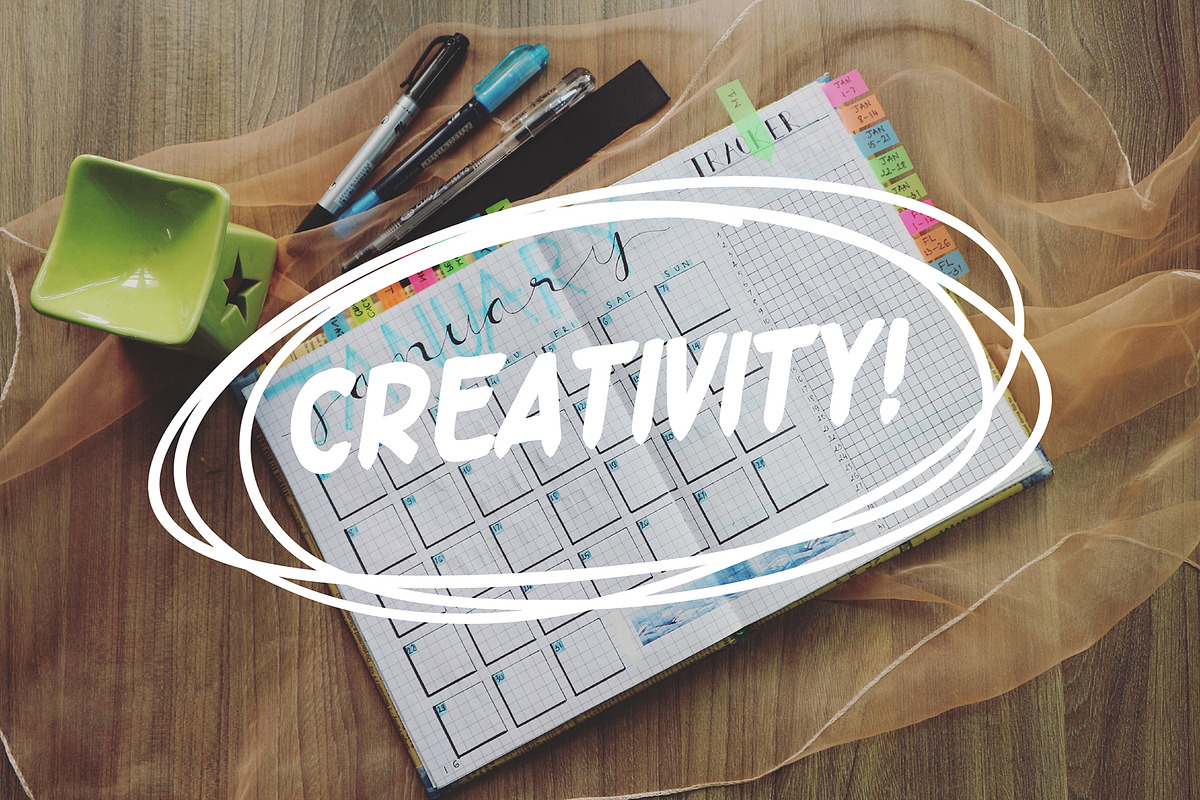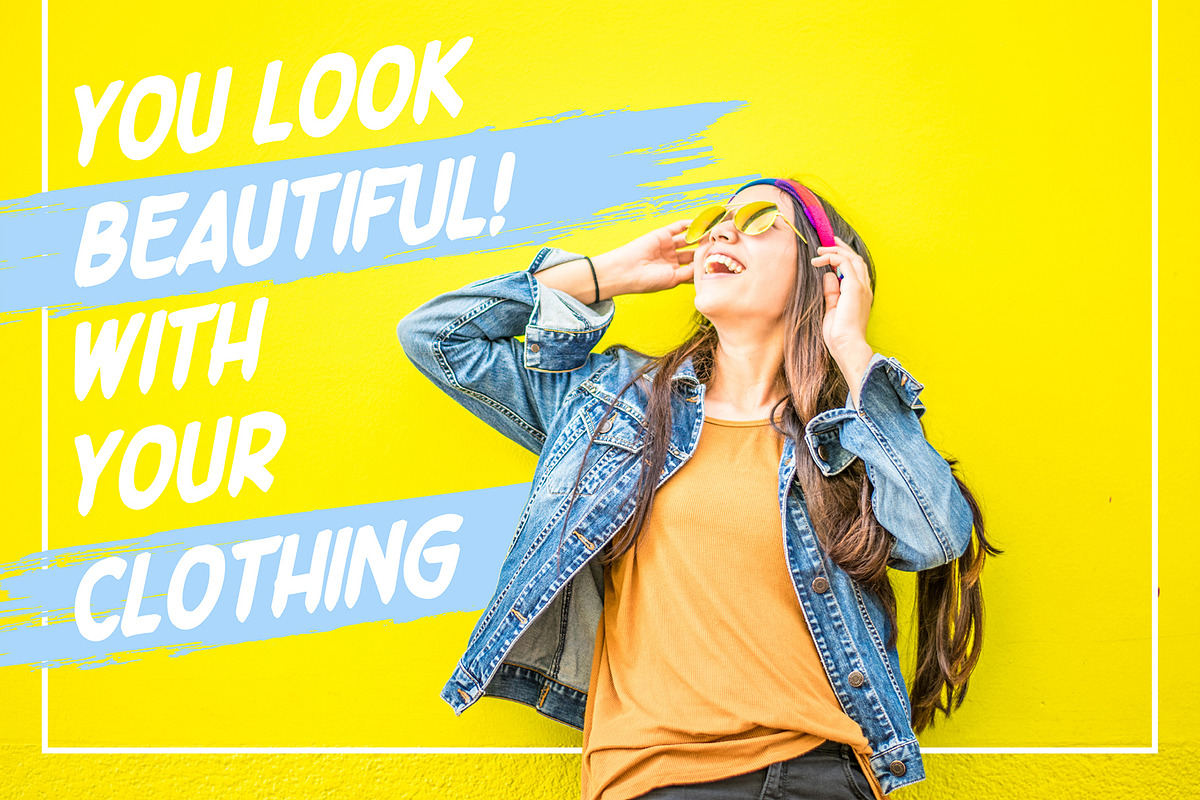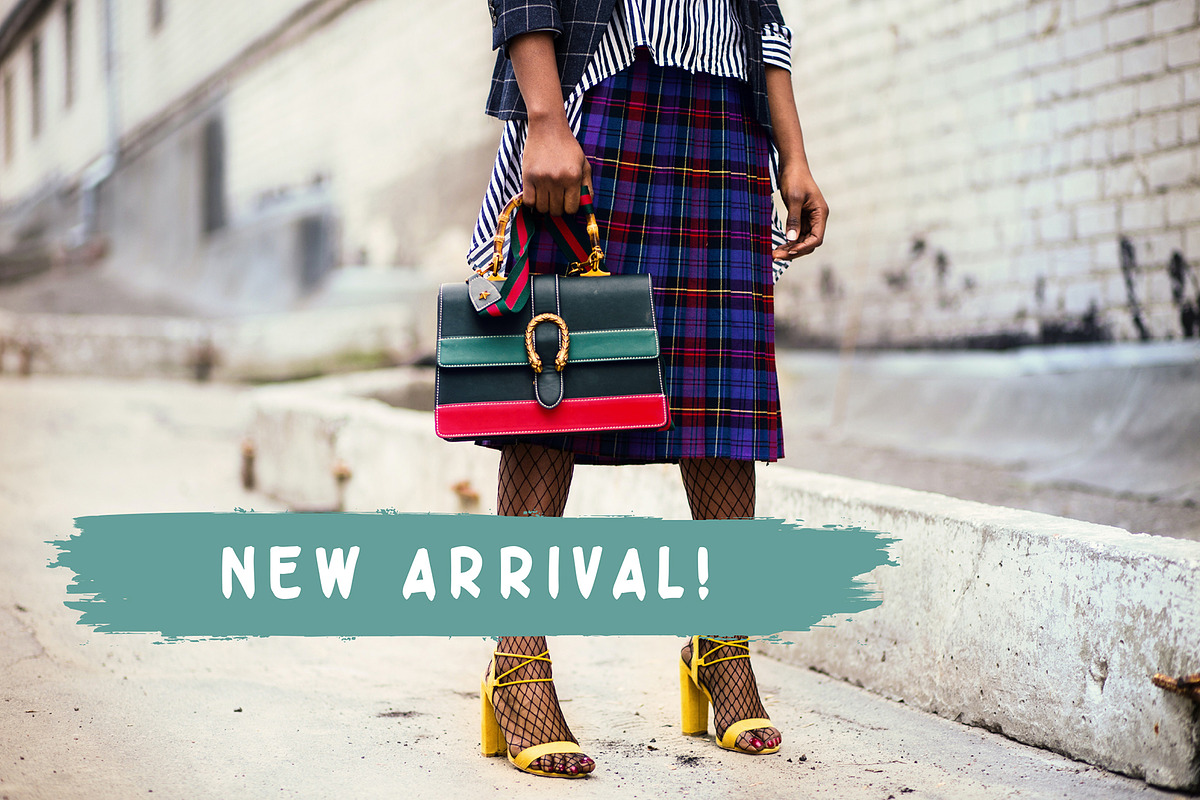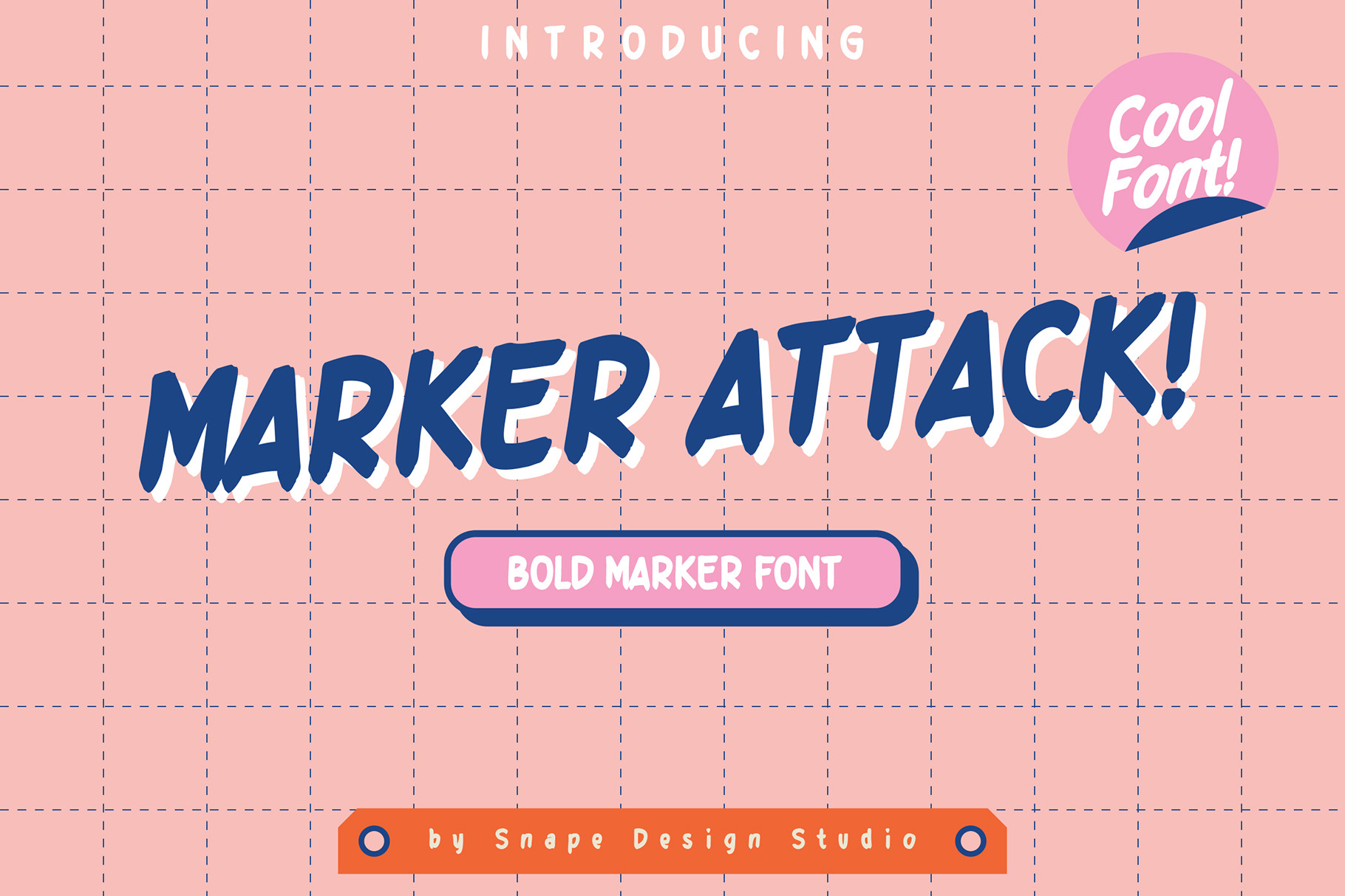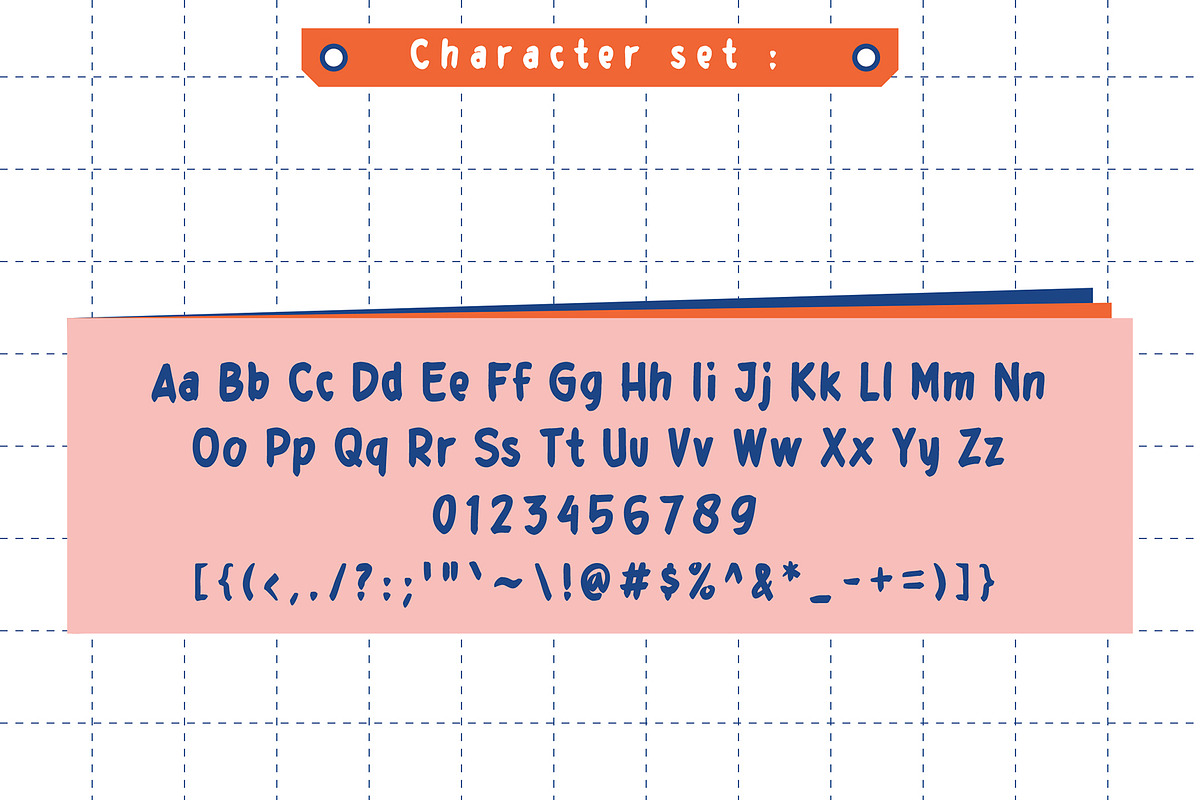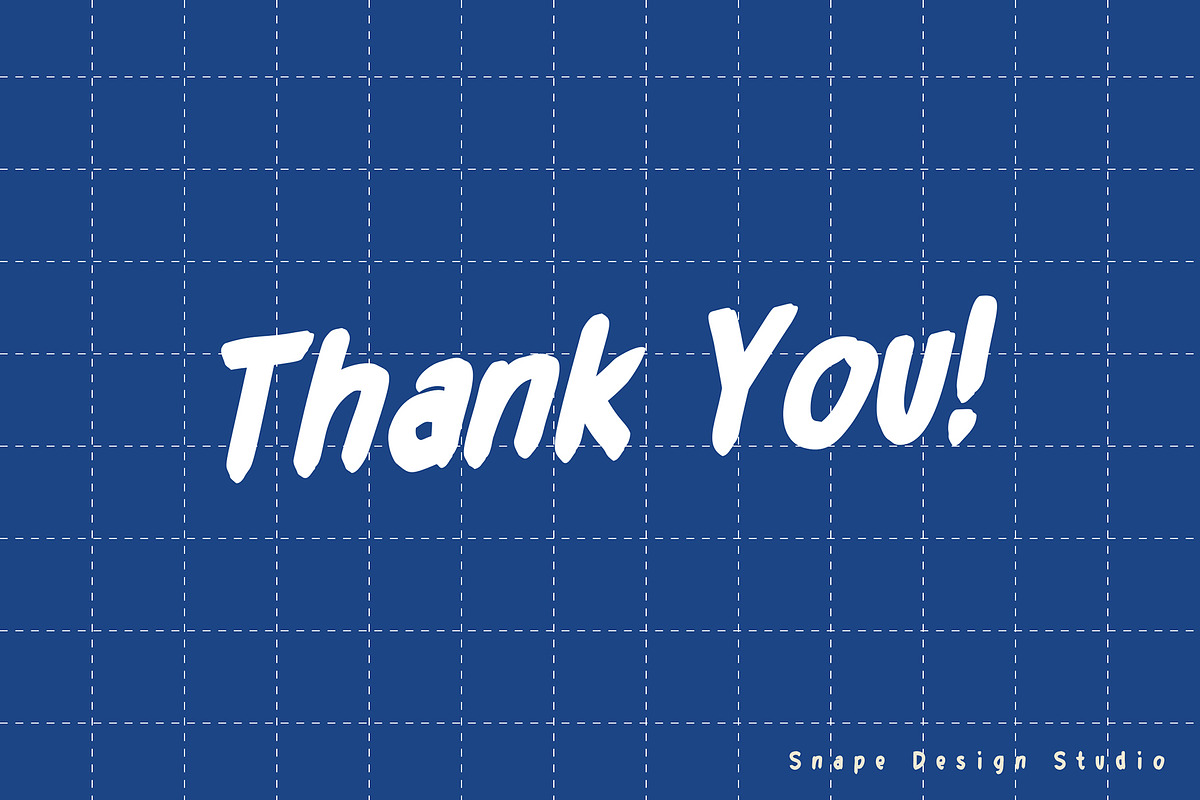
Marker Attack - Bold Marker Font
Marker Attack is a simple and bold handwritten font. Incredibly versatile, this font fits a large variety of designs. Fall in love with it and make it your go-to font, no matter the occasion.
Great for Logo, Sticker, Notes, Cute design, Invitation Card, Brochure, etc.